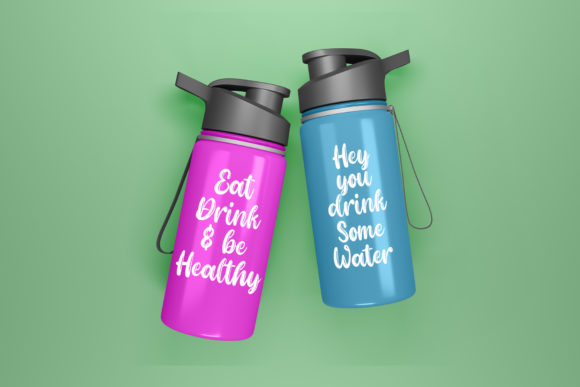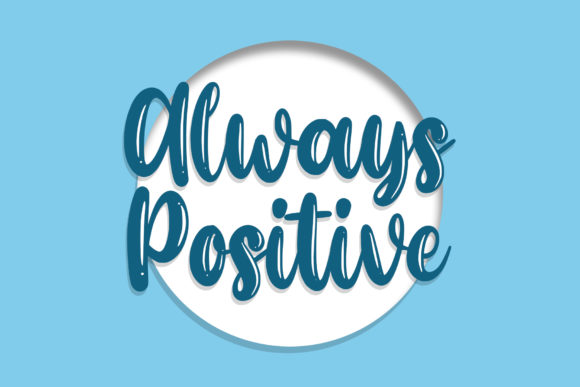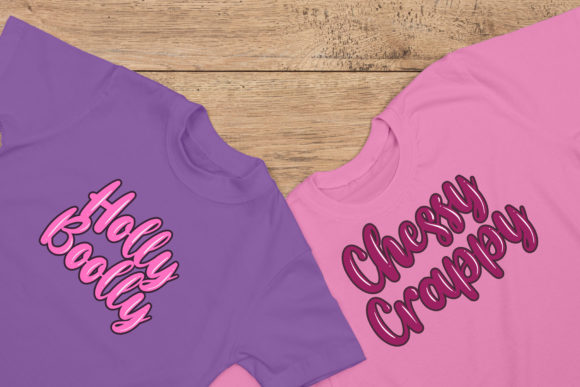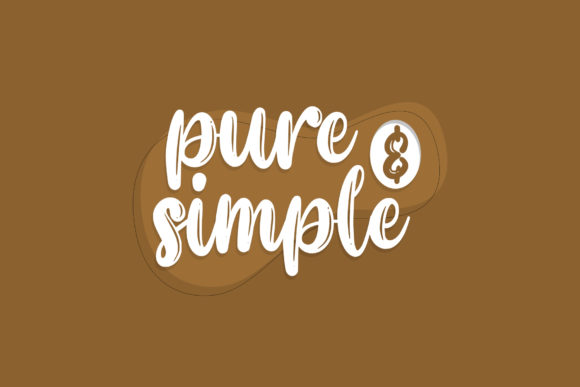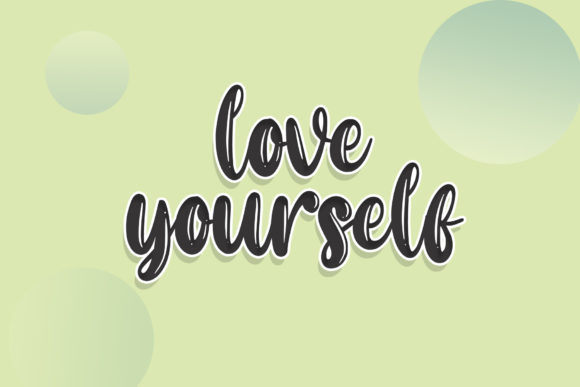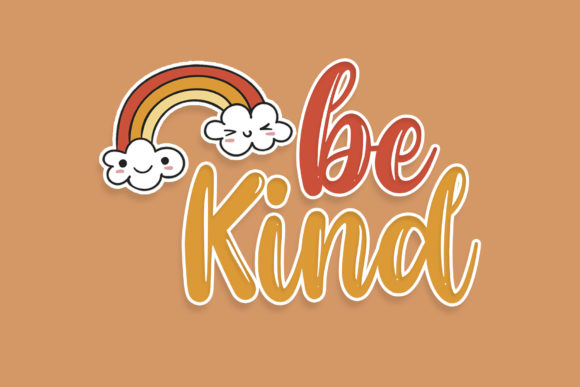
Bellish Font: The Playful Handwritten Font for Creative Projects
Are you looking for a font that adds a touch of playfulness and casual charm to your designs? Look no further than Bellish Font! This beautifully handcrafted font is designed to be a true favorite among designers and crafters, offering a unique blend of readability, versatility, and down-to-earth appeal.
The Characteristics of Bellish Font
Bellish Font is a handwritten font that boasts a carefree and casual charm. Its playful strokes and carefully crafted letters make it perfect for a wide range of creative projects, from digital designs to print materials. The font’s unique characteristics include:
- Playful handwritten style: Bellish Font features a playful, handwritten style that adds a personal touch to any design.
- Casual charm: The font’s casual charm makes it appear wonderfully down-to-earth and approachable.
- Readability: Despite its playful nature, Bellish Font is highly readable, making it perfect for use in body text or as a headline.
- Versatility: Bellish Font is incredibly versatile, and can be used in a wide range of contexts, from busy backgrounds to standalone headlines.
Using Bellish Font in Your Designs
Bellish Font is an incredibly versatile font that can be used in a wide range of creative projects. Here are just a few ideas for using Bellish Font in your designs:
- Digital designs: Use Bellish Font in digital designs, such as social media graphics, blog posts, and website headers.
- Print materials: Bellish Font is perfect for use in print materials, such as brochures, flyers, and business cards.
- Handmade crafts: Add a personal touch to your handmade crafts, such as scrapbooking, card making, and journaling.
- Branding and packaging: Use Bellish Font to add a playful touch to your branding and packaging designs.
Why Choose Bellish Font?
So why choose Bellish Font for your creative projects? Here are just a few reasons:
- Unique and eye-catching: Bellish Font is a unique and eye-catching font that will help your designs stand out from the crowd.
- Easy to read: Despite its playful nature, Bellish Font is highly readable, making it perfect for use in body text or as a headline.
- Versatile: Bellish Font is incredibly versatile, and can be used in a wide range of contexts and creative projects.
- Handcrafted with love: Bellish Font is carefully handcrafted with love and attention to detail, ensuring a high-quality font that will elevate your designs.
Tips for Using Bellish Font Effectively
Here are a few tips for using Bellish Font effectively in your designs:
- Use it as a headline: Bellish Font is perfect for use as a headline, adding a playful touch to your designs.
- Pair it with other fonts: Experiment with pairing Bellish Font with other fonts to create a unique and eye-catching combination.
- Use it on busy backgrounds: Bellish Font is designed to be highly readable, even on busy backgrounds.
- Experiment with colors: Try experimenting with different colors and textures to add depth and interest to your designs.
| Font Name | Bellish Font |
| Author | RochArt |
In conclusion, Bellish Font is a playful handwritten font that is perfect for designers and crafters looking to add a touch of casual charm to their creative projects. With its unique characteristics, versatility, and handcrafted quality, Bellish Font is sure to become a true favorite among designers and crafters. So why not give it a try and see the difference it can make in your designs?